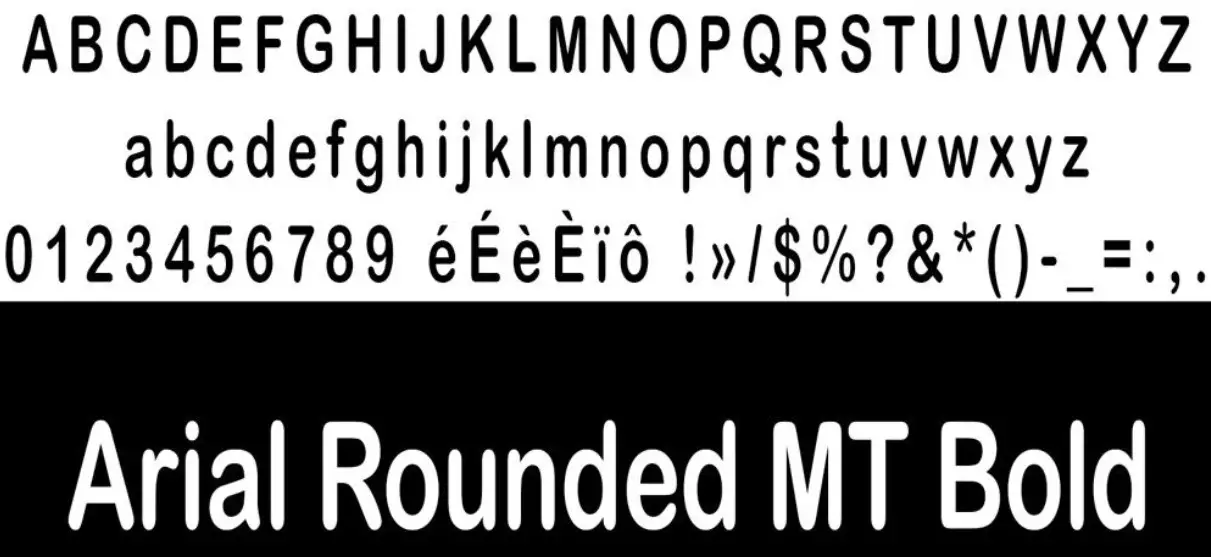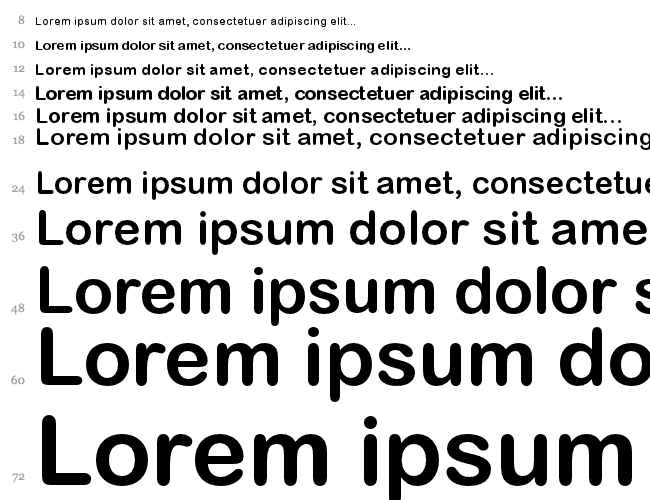
Arial Rounded Mt Bold Font
Arial Rounded Mt Bold Font - We didn’t find arial mt in the default font list in word. However, we have the default arial rounded mt bold font in word application. Download arial rounded mt bold font. Ideal for branding, signage, and children's books due to its clear and inviting look.